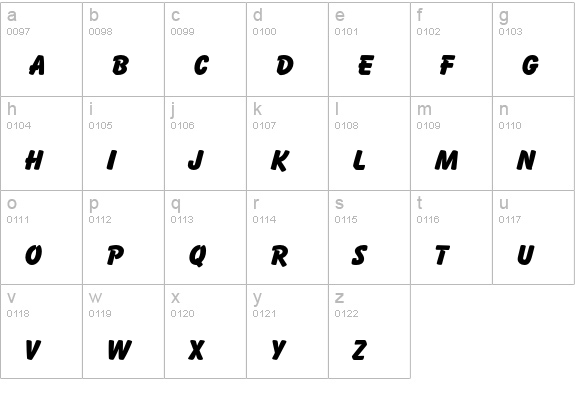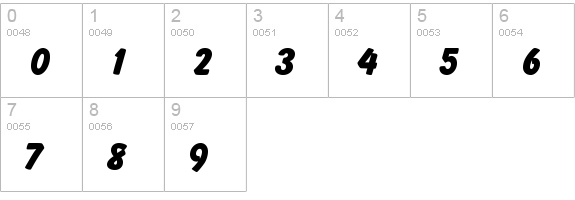
Balloon SC D Extra Bold is a strong, high-contrast variant in the Balloon typeface family \xE2\x80\x94 well suited to headlines, attention-grabbing titles, and strong calls-to-action.
Introducing Balloon SC D Extra Bold font, a playful and eye-catching typeface that is perfect for making a bold statement in your designs. This font features rounded edges and a cheerful demeanor that adds a touch of fun to any project. Whether you're creating posters, logos, or social media graphics, Balloon SC D Extra Bold will help your text stand out in style. The best part? Balloon SC D Extra Bold font is available for free download at FontsMarket.com. Take advantage of this fantastic opportunity to enhance your design projects with this unique and striking typeface. Let your creativity soar with Balloon SC D Extra Bold font today!